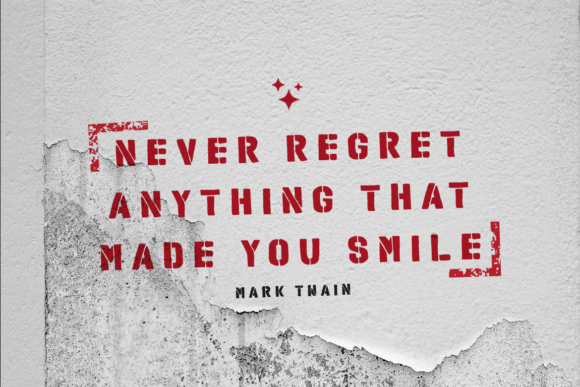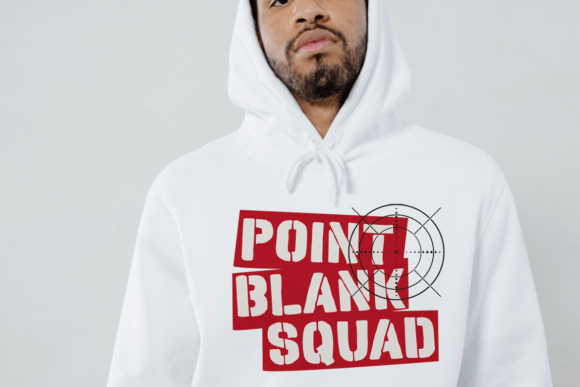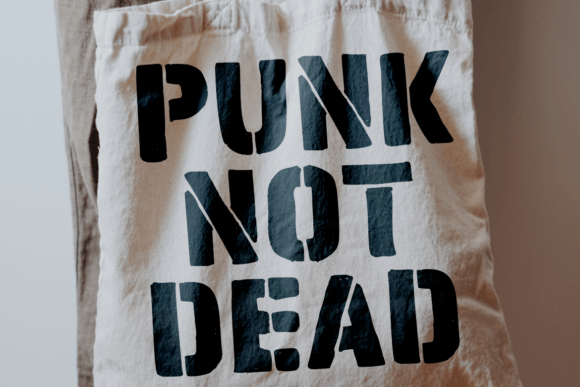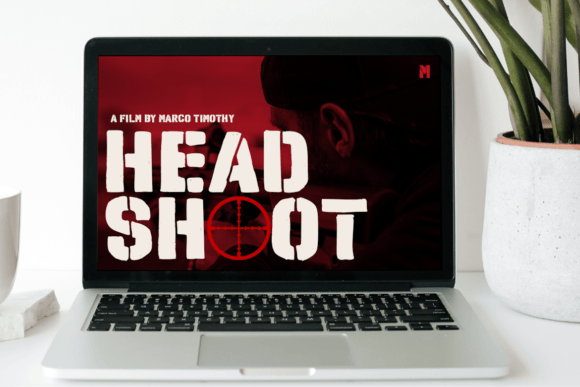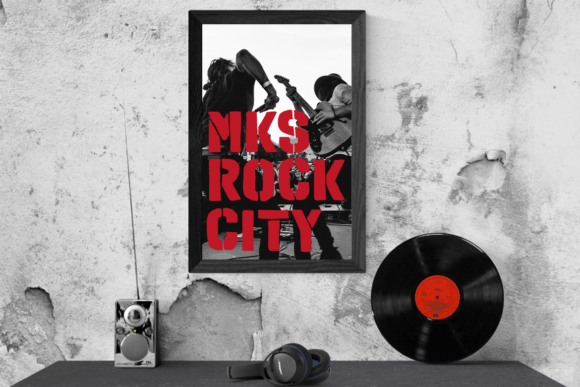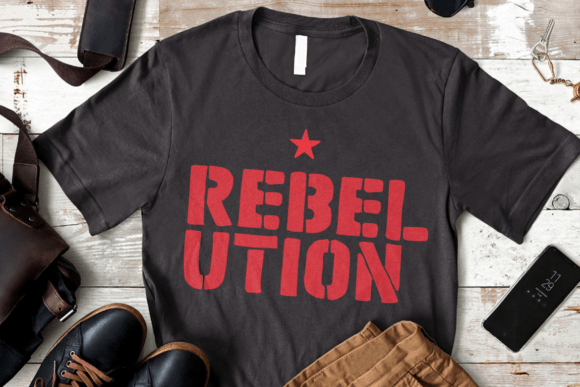
Unleash Your Creativity with Explotion Font: The Ultimate Stencil Display Font
Are you a designer, crafter, or DIY enthusiast looking for a unique and stylish font to elevate your creative projects? Look no further than Explotion Font, a versatile stencil display font that’s perfect for a wide range of applications. From greeting cards and headlines to posters, flyers, and more, Explotion Font is sure to add a cool and exquisite feel to any project.
What is Explotion Font?
Explotion Font is a carefully crafted stencil display font that’s designed to make a statement. Its unique and intricate design features bold lines, sharp edges, and a distinctive stencil style that’s sure to grab attention. Whether you’re looking to create eye-catching headlines, design custom greeting cards, or add a personal touch to your DIY projects, Explotion Font is the perfect choice.
Key Features of Explotion Font
- Stencil Display Font: Explotion Font features a unique stencil design that’s perfect for creating bold and eye-catching text.
- Versatile: Explotion Font can be used for a wide range of applications, including greeting cards, headlines, posters, flyers, and more.
- Cool and Exquisite Feel: Explotion Font adds a touch of sophistication and style to any project, making it perfect for designers and crafters who want to create unique and eye-catching designs.
- Easily Customizable: Explotion Font can be easily customized to fit your project’s needs, including adjusting font size, color, and style.
Uses for Explotion Font
Explotion Font is a versatile font that can be used for a wide range of applications, including:
- Greeting Cards: Add a personal touch to your greeting cards with Explotion Font’s unique stencil design.
- Headlines: Create eye-catching headlines for your blog posts, articles, or social media posts with Explotion Font.
- Posters and Flyers: Use Explotion Font to create bold and eye-catching posters and flyers for your business, event, or promotion.
- DIY Projects: Add a touch of style to your DIY projects, such as scrapbooking, crafting, or woodworking, with Explotion Font.
Tips for Using Explotion Font
Here are some tips for getting the most out of Explotion Font:
- Experiment with Font Sizes: Explotion Font looks great in a variety of font sizes, from small and subtle to large and bold.
- Play with Color: Explotion Font can be used in a range of colors, from bold and bright to subtle and muted.
- Combine with Other Fonts: Explotion Font pairs well with a range of other fonts, so don’t be afraid to experiment with different combinations.
Explotion Font is a versatile and stylish stencil display font that’s perfect for designers, crafters, and DIY enthusiasts. With its unique and intricate design, Explotion Font is sure to add a cool and exquisite feel to any project. Whether you’re looking to create eye-catching headlines, design custom greeting cards, or add a personal touch to your DIY projects, Explotion Font is the perfect choice. So why wait? Download Explotion Font today and unleash your creativity!